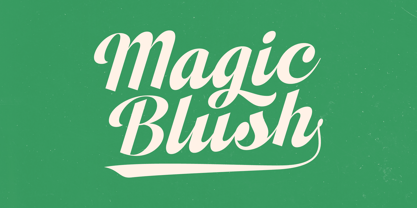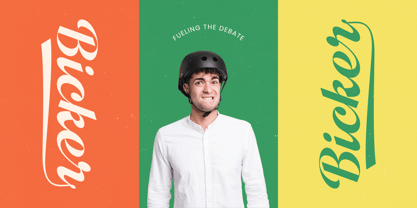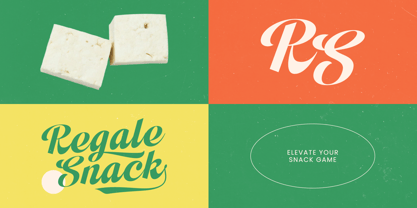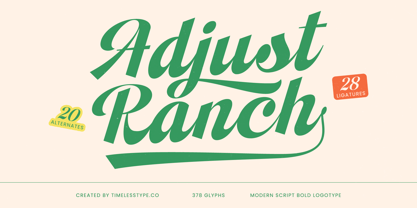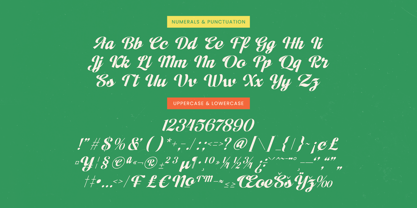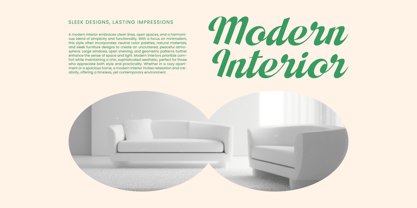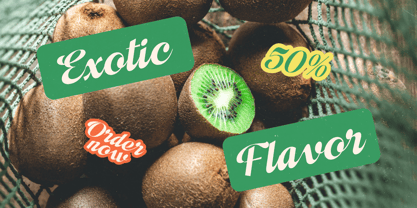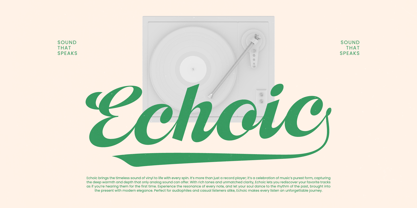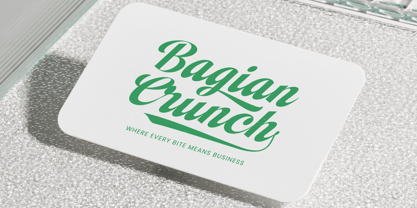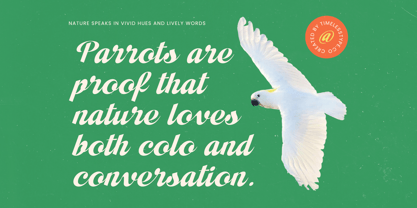
Adjust Ranch
von Timelesstype Studio
Die Schriftfamilie Adjust Ranch wurde von Heru Utama Putra entworfen und von Timelesstype Studio veröffentlicht. Adjust Ranch enthält 2 Stile und Familienpaketoptionen. Mehr über diese Familie
Adjust Ranch - Modern Script Bold Logotype , from Timelesstype, Suitable for any projects such as: logos, branding projects, homeware designs, product packaging, mugs, quotes, posters, shopping bags, t-shirts, book covers, name card, invitation cards, greeting cards, label, photography, watermark, special events, and all your other luxury and beautiful projects that need a Luxury Script taste.
Designer: Heru Utama Putra
Foundry: Timelesstype Studio